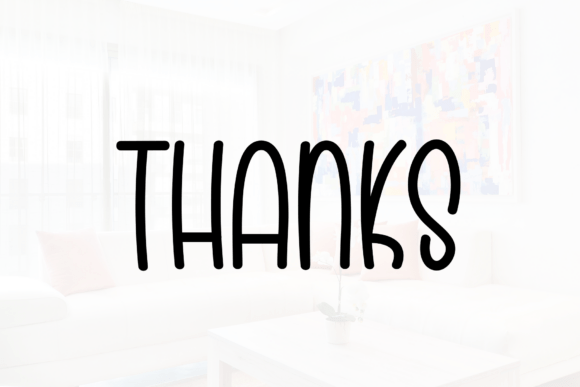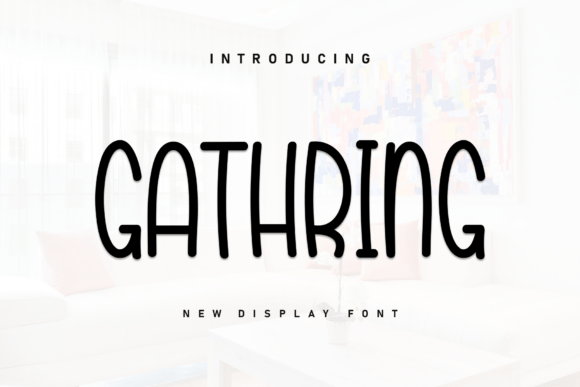
Gathring Font: Elevate Your Designs with a Relaxed yet Luxurious Handwritten Style
In the world of typography, fonts play a crucial role in conveying the tone and personality of a brand or design. For designers and crafters looking for a unique and stylish handwritten font, Gathring is an excellent choice. This marker-drawn font boasts a relaxed and sporty feel, making it perfect for a wide range of applications, from branding and logos to wedding supplies and marketing promotions.
The Characteristics of Gathring Font
Gathring is a carefully crafted handwritten font that mimics the look of marker-drawn letters. Its distinctive characteristics include:
- Relaxed and sporty feel: Gathring’s casual vibe makes it ideal for designs that require a friendly and approachable tone.
- Luxurious and elegant: Despite its casual feel, Gathring exudes a sense of sophistication and luxury, perfect for high-end brands and designs.
- Marker-drawn look: The font’s marker-drawn appearance gives it a unique and artistic feel.
Use Cases for Gathring Font
Gathring’s versatility makes it suitable for a wide range of applications, including:
- Branding and logos: Create a memorable brand identity with Gathring’s distinctive and stylish font.
- Wedding supplies: Add a touch of elegance and sophistication to wedding invitations, stationery, and decorations.
- Greeting cards: Make your greeting cards stand out with Gathring’s unique and artistic font.
- Fashion and lookbooks: Elevate your fashion designs and lookbooks with Gathring’s luxurious and stylish font.
- Marketing promotions: Use Gathring to create eye-catching promotional materials, such as flyers, brochures, and posters.
Why Choose Gathring Font?
With so many fonts available, why choose Gathring? Here are a few compelling reasons:
- Unique and distinctive: Gathring’s marker-drawn look sets it apart from other fonts, making it perfect for designers and crafters looking for a one-of-a-kind style.
- Versatile: Gathring’s relaxed and sporty feel makes it suitable for a wide range of applications, from casual to luxurious designs.
- Elegant and sophisticated: Despite its casual feel, Gathring exudes a sense of luxury and sophistication, making it perfect for high-end brands and designs.
Tips for Using Gathring Font Effectively
To get the most out of Gathring, here are a few tips:
- Pair with complementary fonts: Combine Gathring with other fonts to create a unique and visually appealing typography.
- Experiment with colors and textures: Add depth and interest to your designs by experimenting with different colors and textures.
- Use for headlines and titles: Gathring’s distinctive font is perfect for headlines and titles, making it a great choice for designers looking to make a statement.
In conclusion, Gathring is a versatile and stylish handwritten font that offers a unique and luxurious feel. Its relaxed and sporty vibe makes it perfect for a wide range of applications, from branding and logos to wedding supplies and marketing promotions. With its distinctive marker-drawn look and elegant sophistication, Gathring is an excellent choice for designers and crafters looking to elevate their designs.